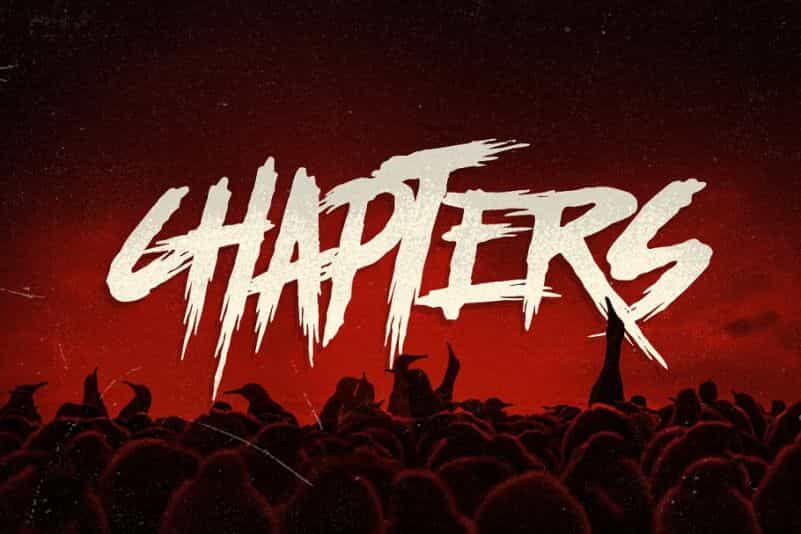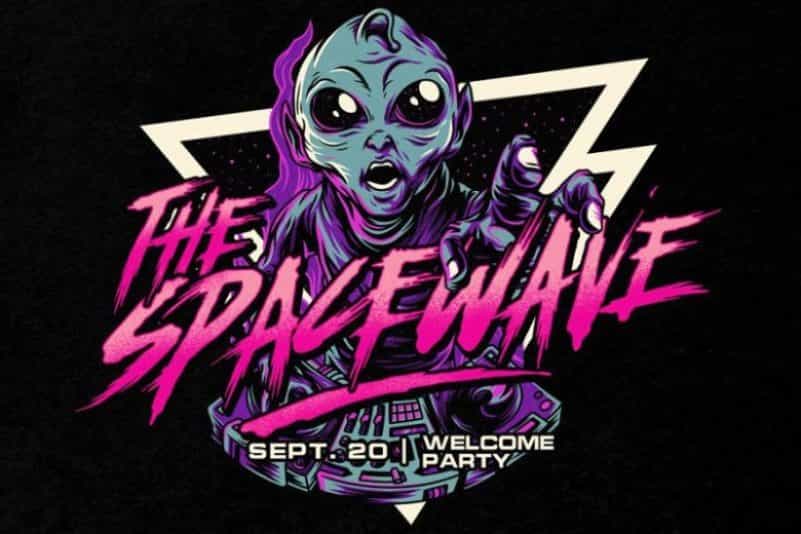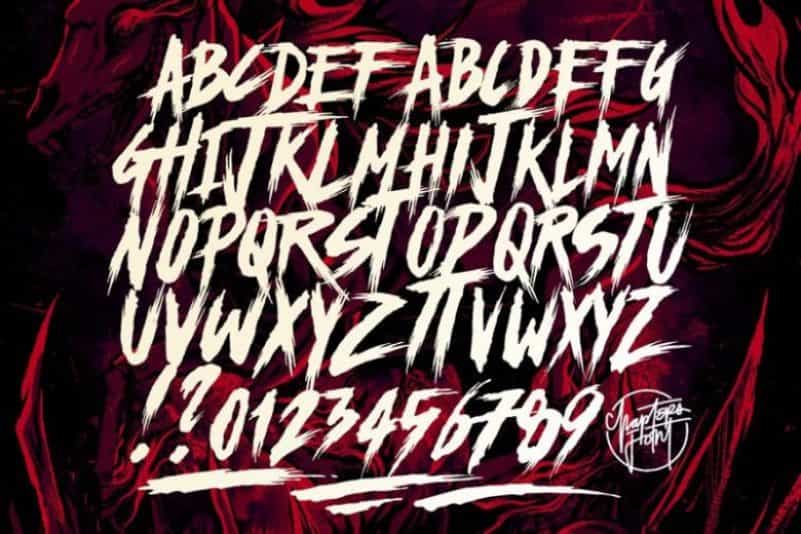
Chapters Font is a handwritten brush font with an authentic dry brush imperfection strokes drawn on paper. Chapters is suitable for branding projects, logo, wedding designs, social media posts, ads, product packaging, product designs, label, photography, watermark, invitation, stationery and any projects that need the handwriting style.